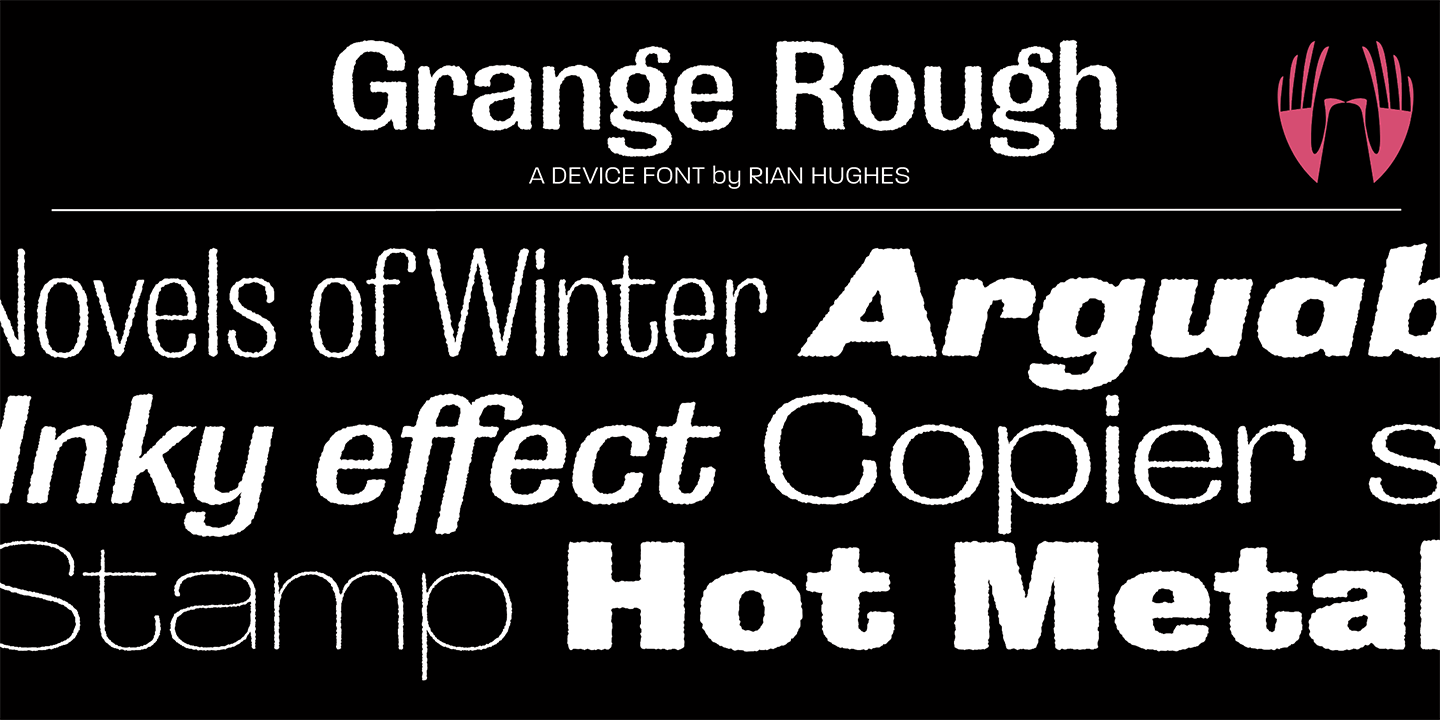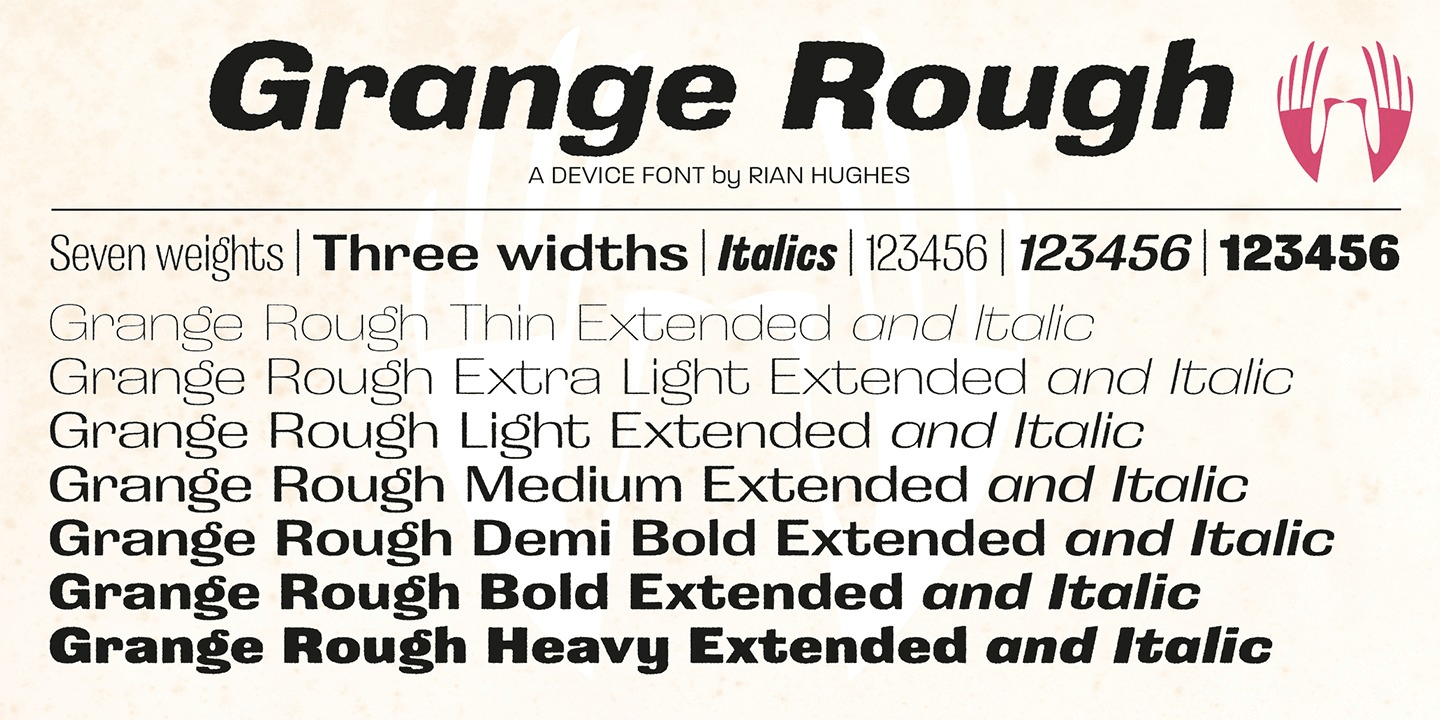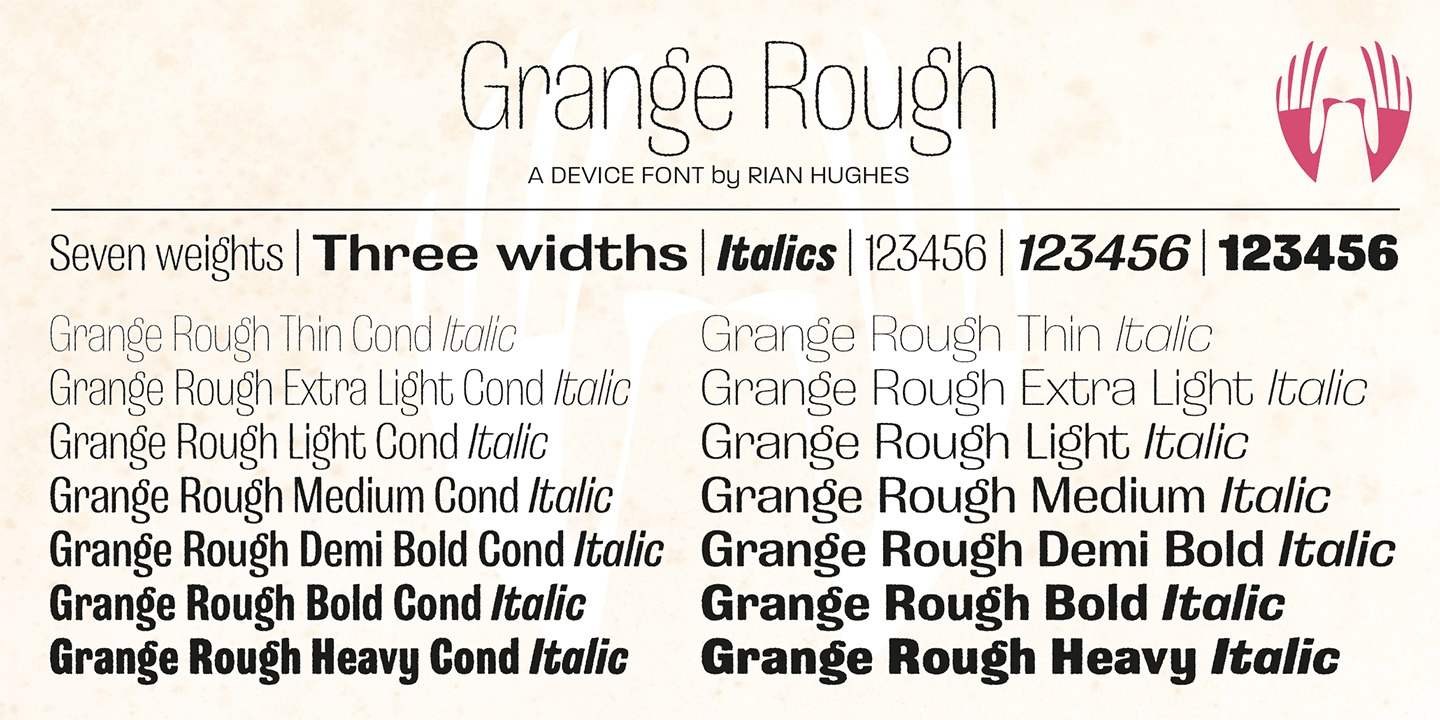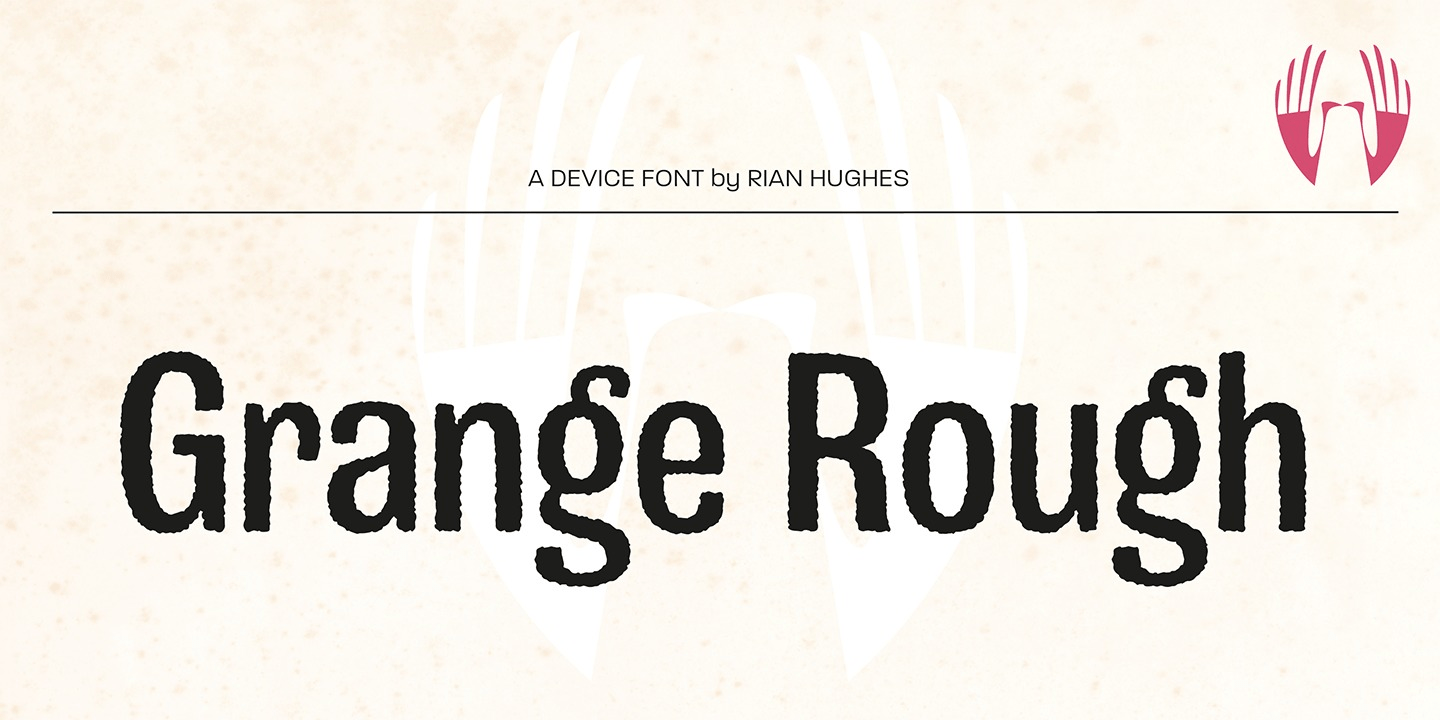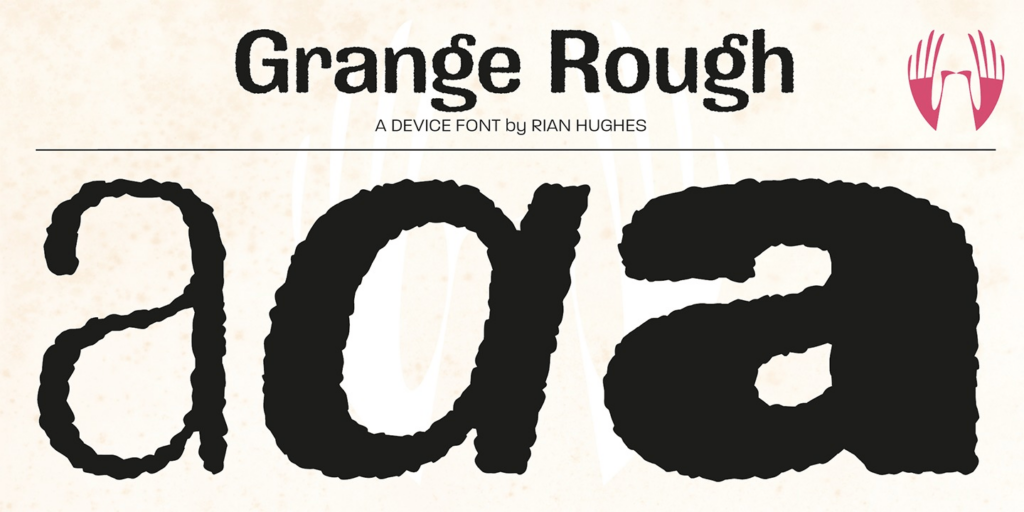
Grange Rough
About Grange Rough
Grange Rough is an inky, distressed version of Grange that mimics the effects of vintage hot-metal type on rougher paper. Grange is the Device interpretation of the classic 'Grot' thick/thin sans style. Unlike the traditional models on which it…